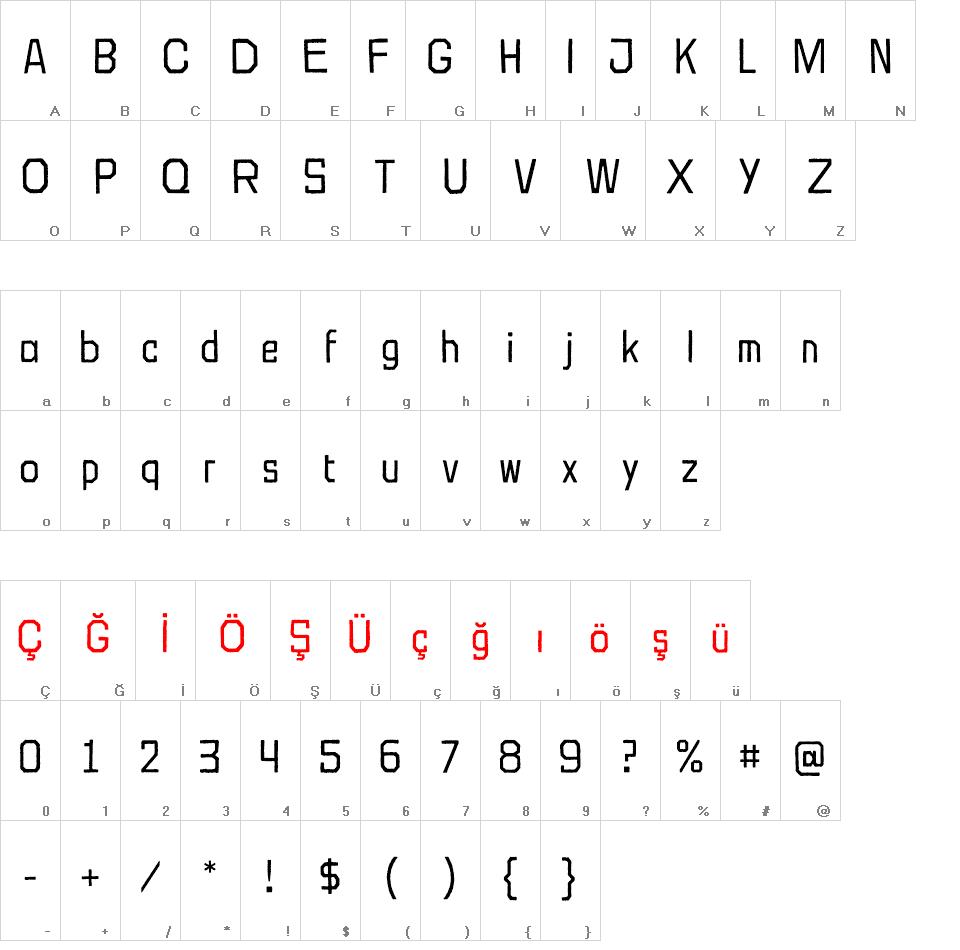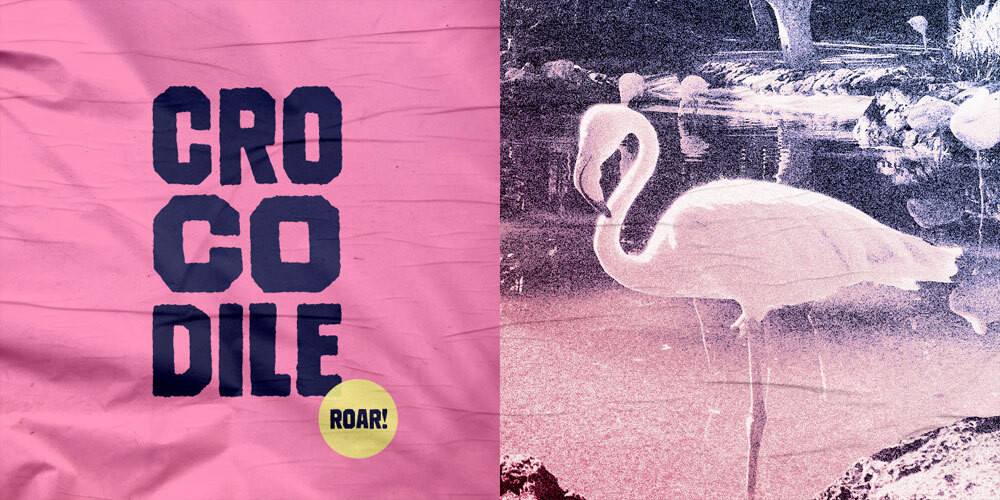
HVD Crocodile font
The first sketch of HVD Crocodile was made in 2008. I drew the basic lettershapes for the bold weight, but never finished the typeface. Nearly 10 years later I found it again and decided to finish it. We added two additional styles and released it as a freefont, as it was planned from the beginning. Its rough and blocky appearance gives it a loud and self confident voice — It will work great in package design or on posters.